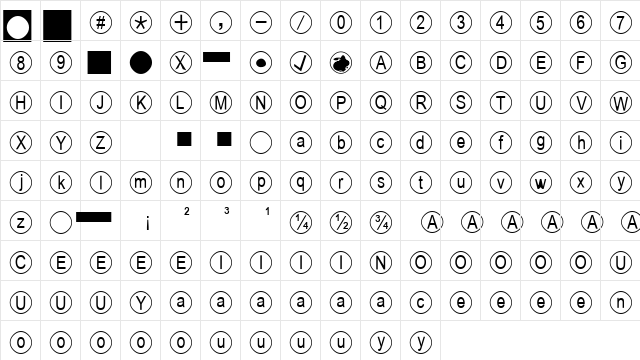
ALSCAN Regular
Design Context for ALSCAN Typeface
ALSCAN takes a measured approach to typography — its balanced proportions and neutral character make it a reliable workhorse for both digital and print work.